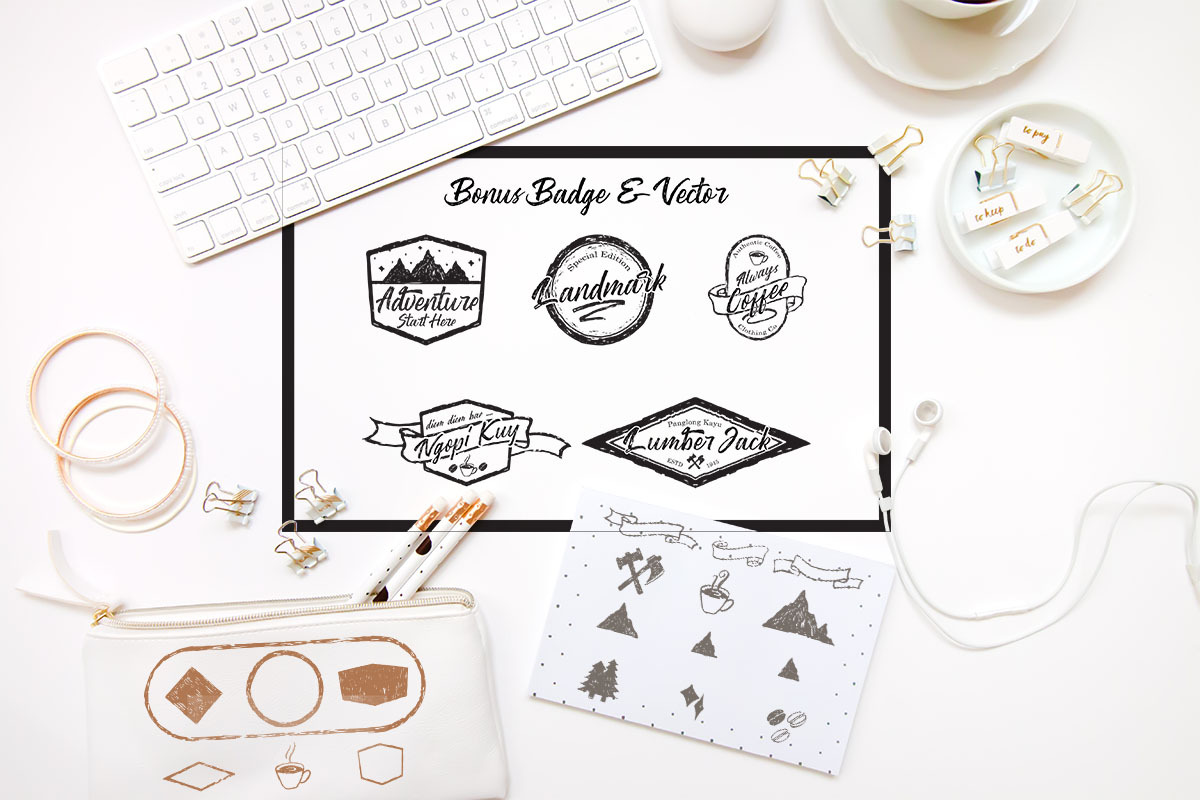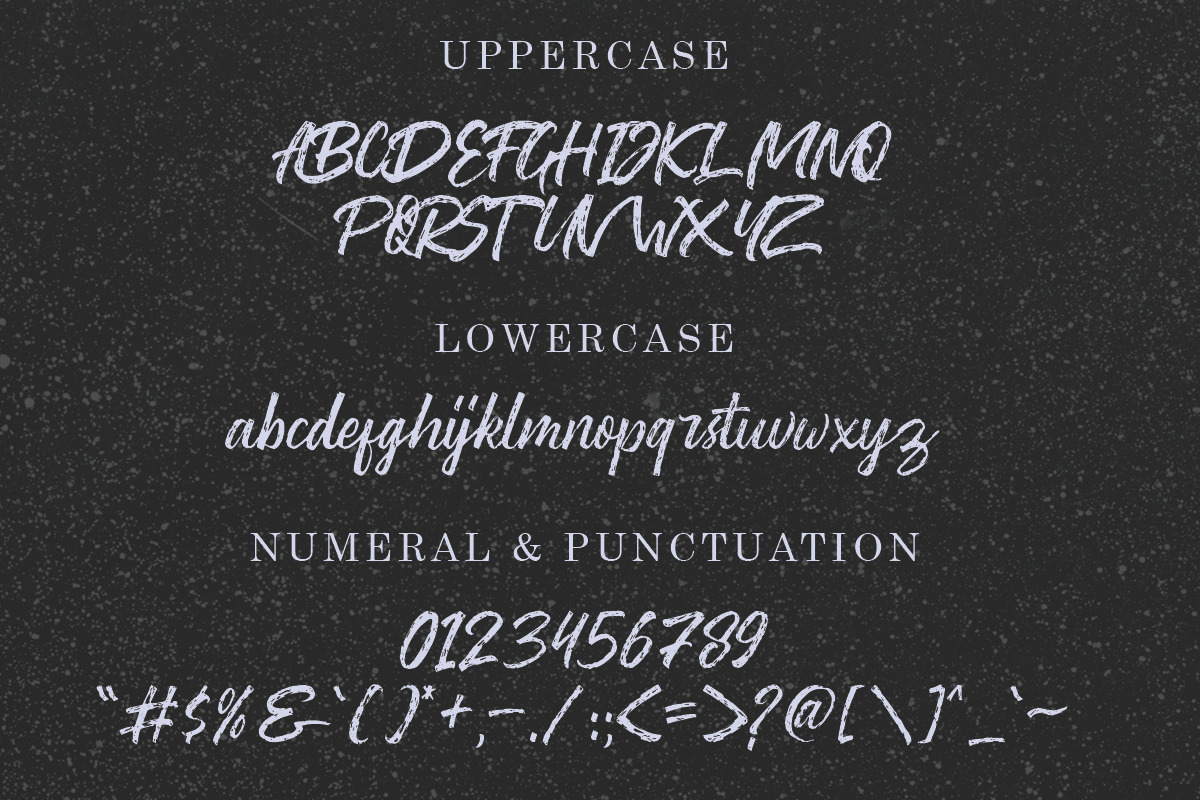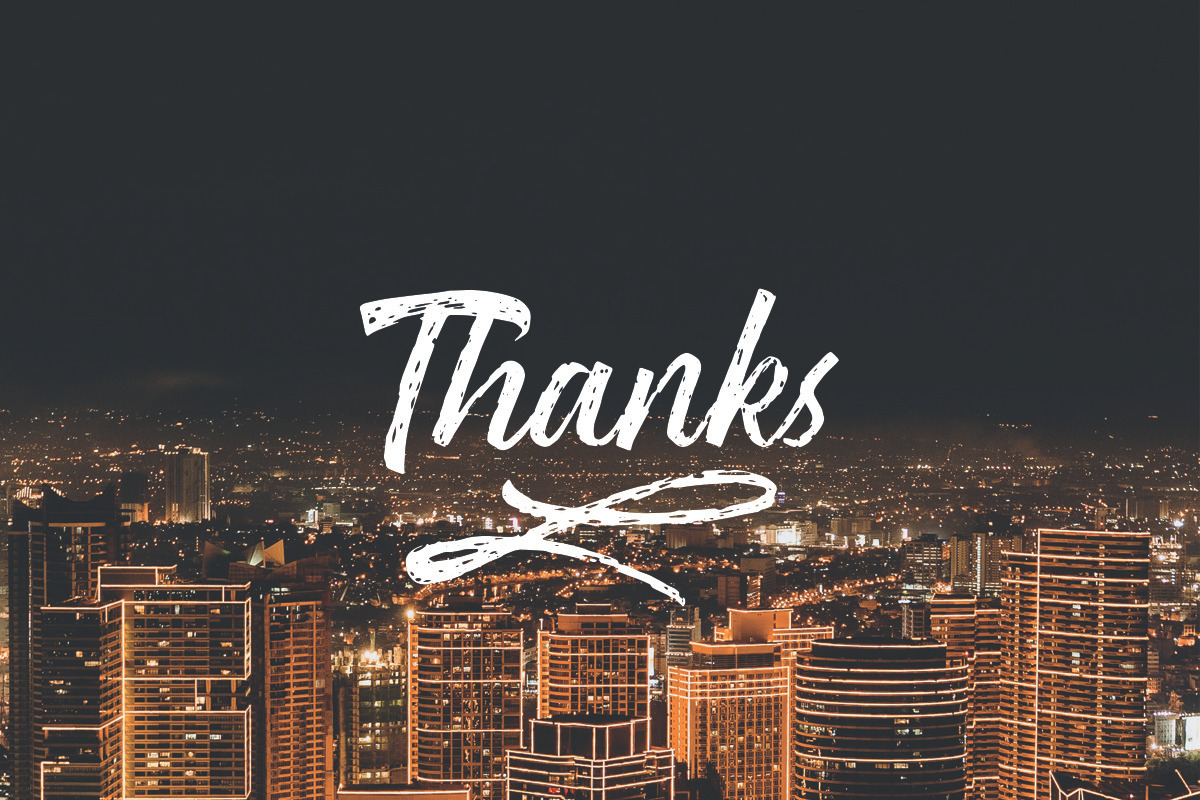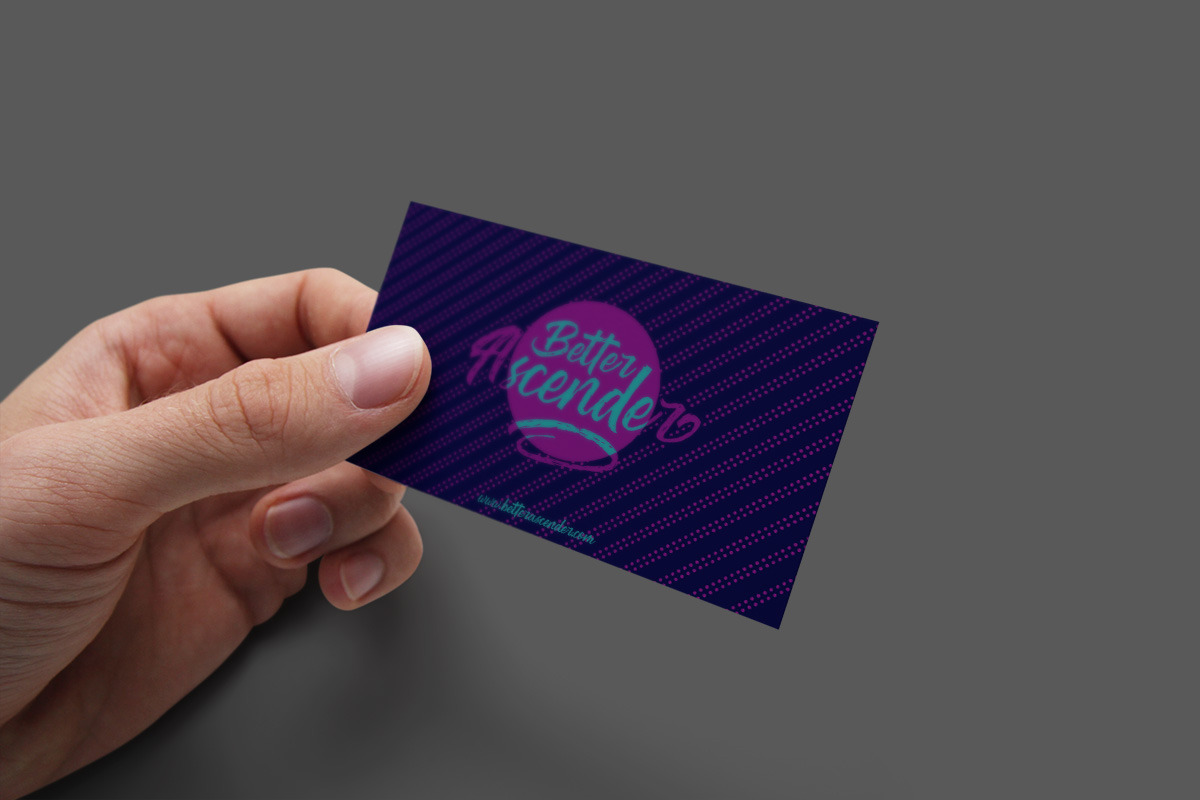
Washington ~ Rough Script
Introducing, Washington Rough Script Typeface. give your design with touch of vintage style. this typeface is handmade lettering with vector editing.Washington Rough is suitable for various design projects like Card, T-Shirt, Apparel,Stationary,Book Template, and many more. Washington Rough has +300 Glyphs which is stylisctic Glyphs.
Washington Rough Features :
- Stylistic Alternate (1-9) set
- Contextual Alternate
- Swash (Bonus)